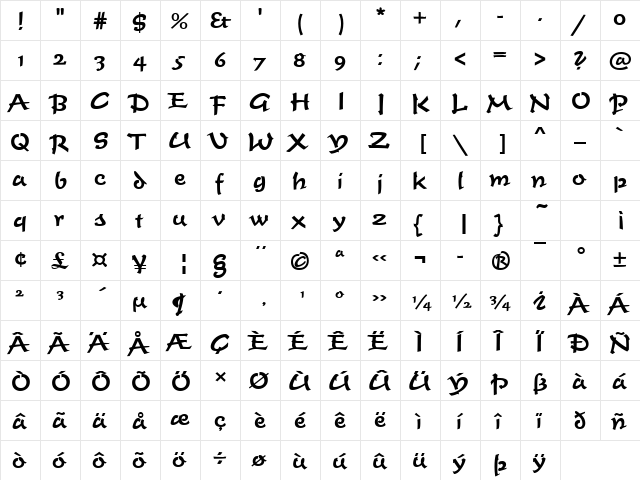
Time Becker Med Regular
Design Context for Time Becker Med Typeface
Time Becker Med is a composed and adaptable typeface that performs quietly and consistently across a wide range of design contexts.